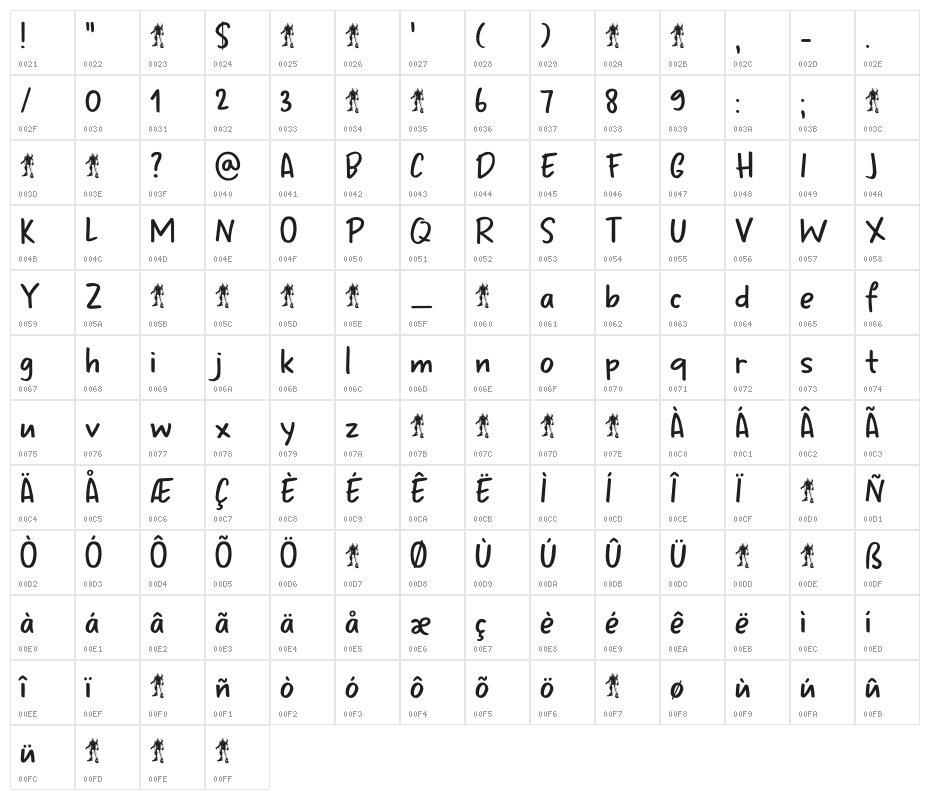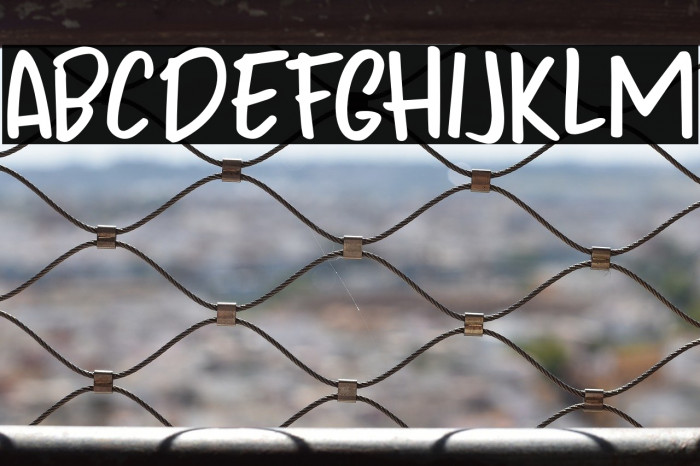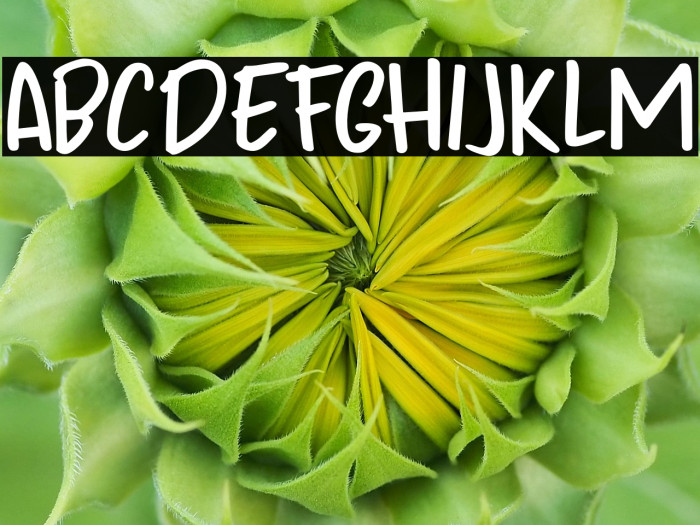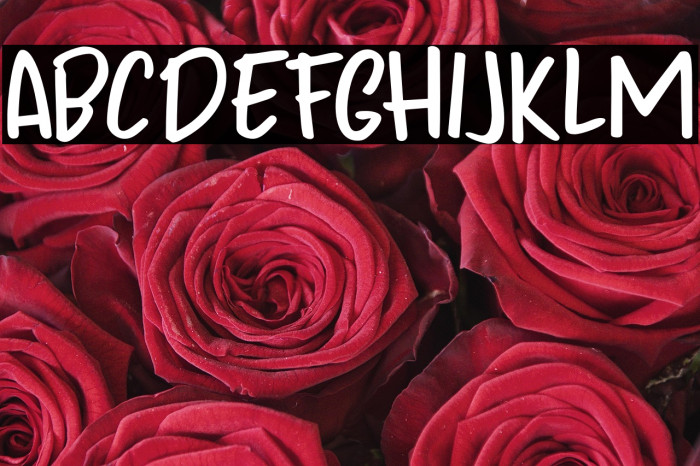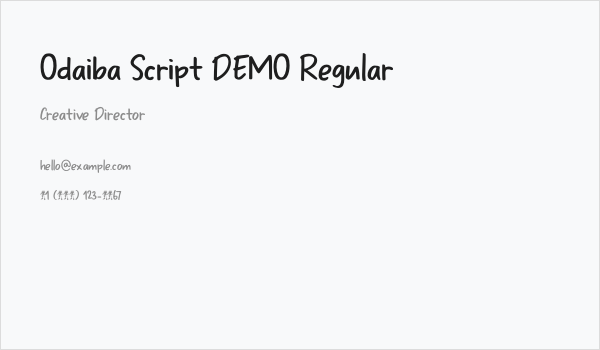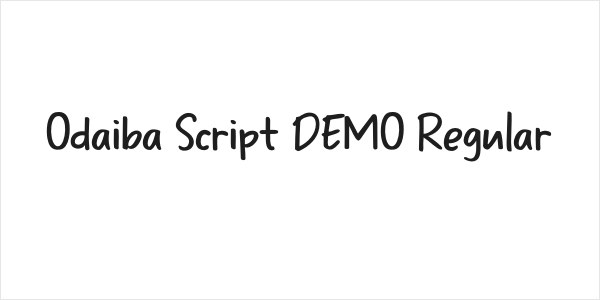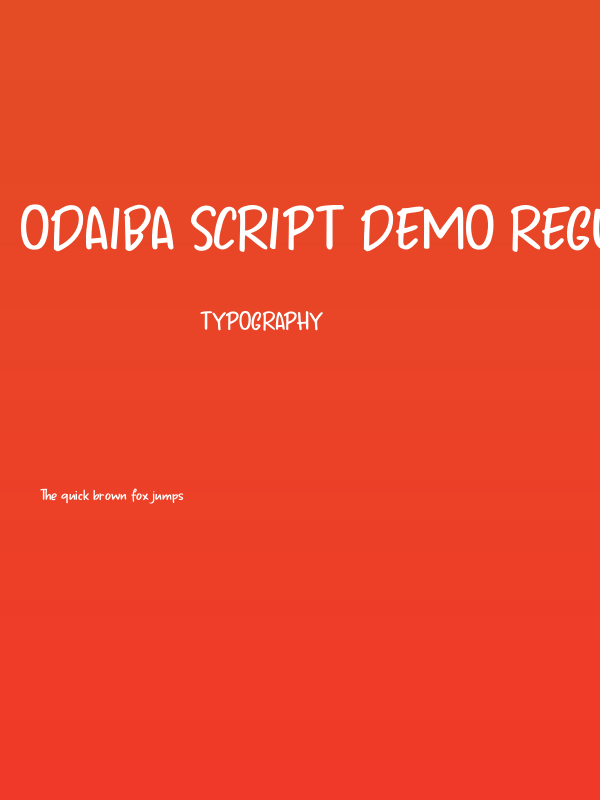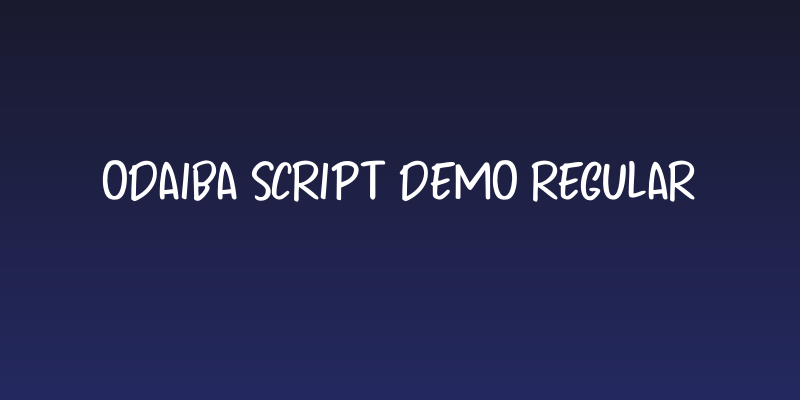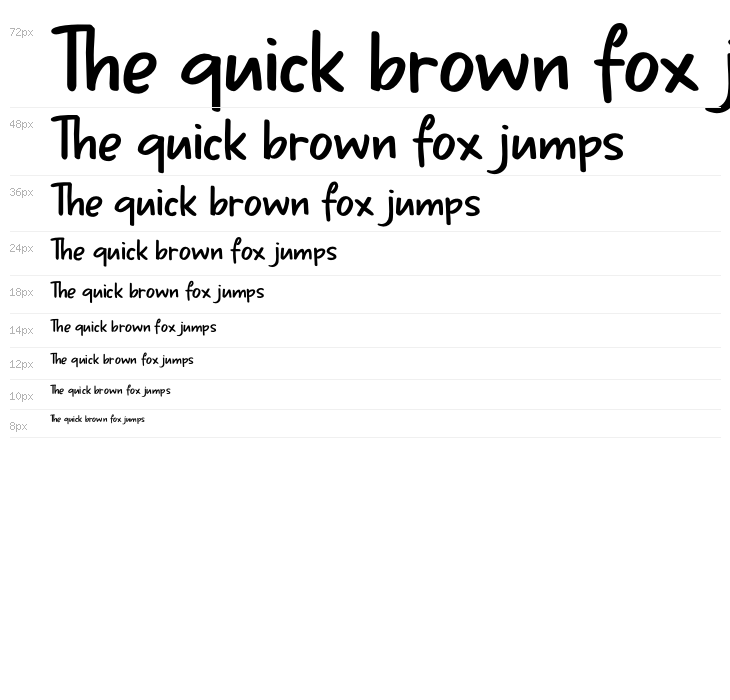
Odaiba Script DEMO Regular Font
Odaiba Script DEMO Regular Description
This playful and energetic script font features a handwritten style with a casual and friendly appearance. The letters are slightly slanted, giving a dynamic flow to the text. The strokes are bold and rounded, providing a sense of warmth and approachability. The uppercase letters are tall and prominent, while the lowercase letters maintain a consistent rhythm, enhancing readability. The numbers and special characters are designed with the same lively spirit, making them suitable for a variety of creative applications. The overall design is cohesive, with a touch of whimsy that makes it ideal for informal and fun projects.
| Proposed Projects | Ideal for greeting cards, children's books, playful branding, and social media graphics. |